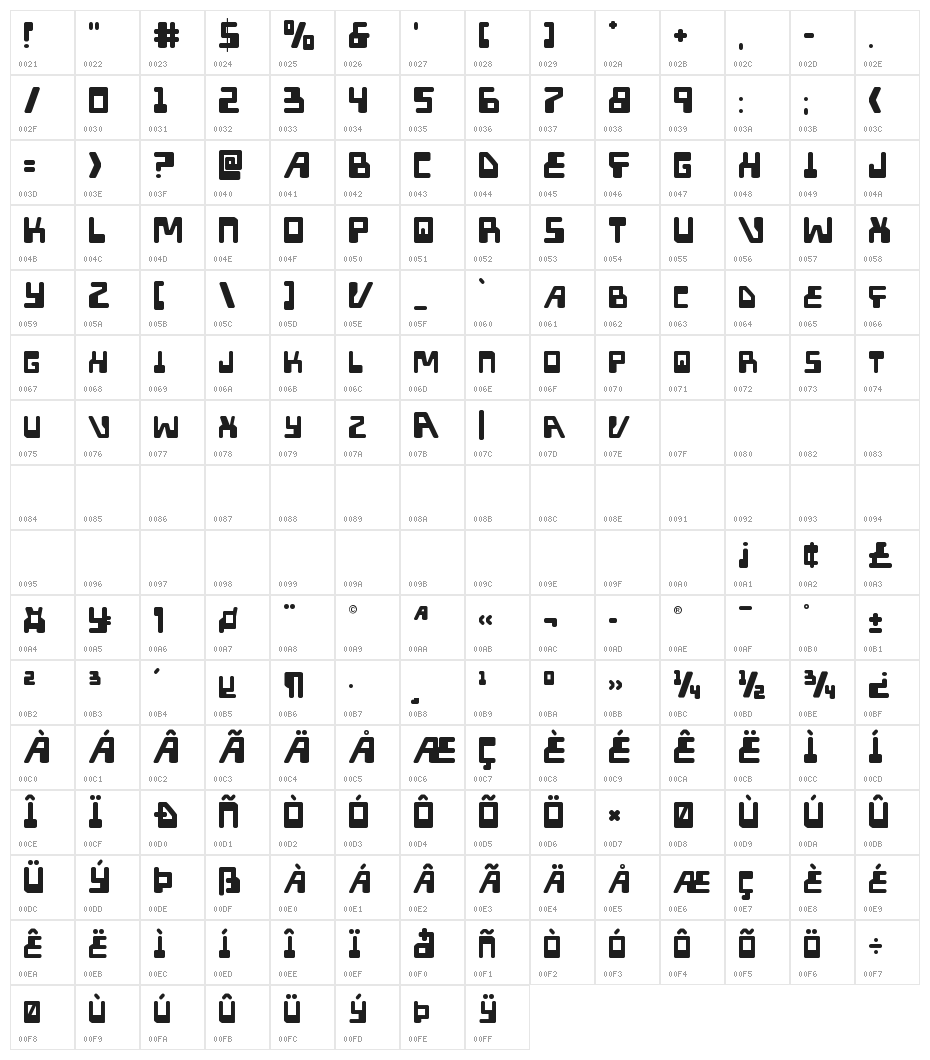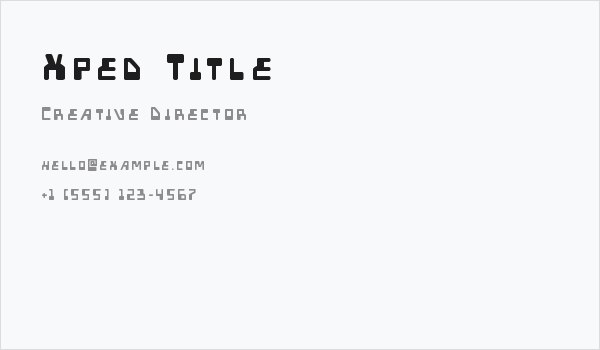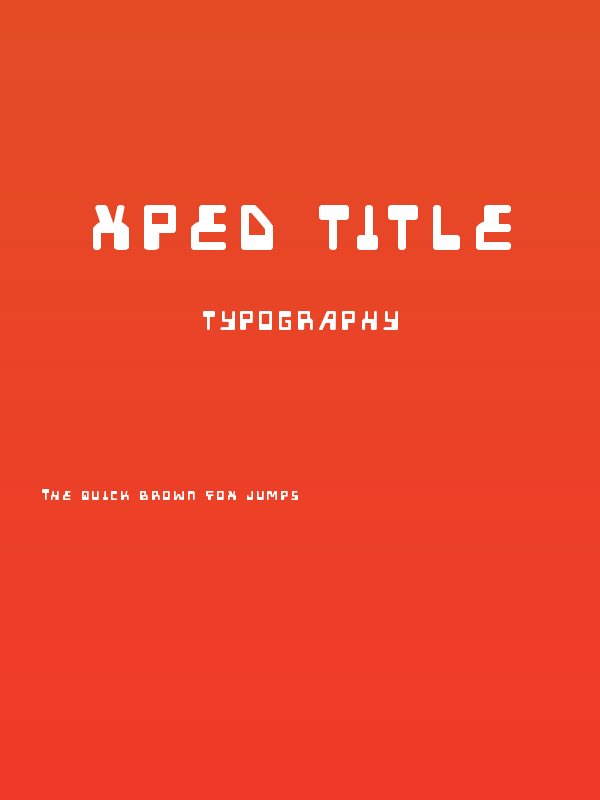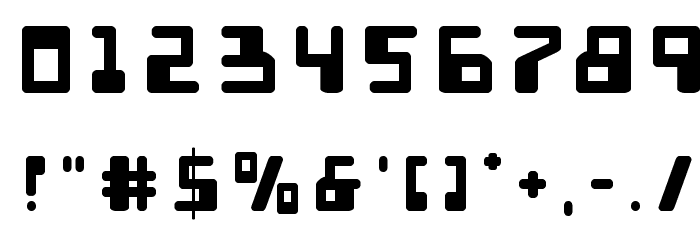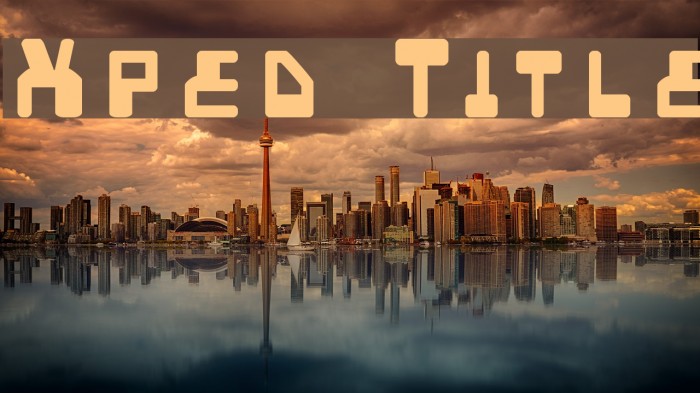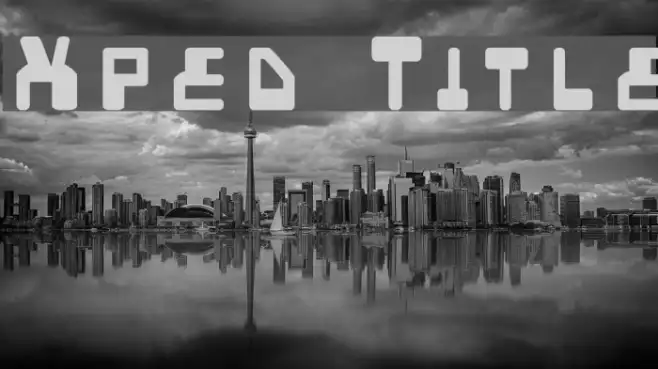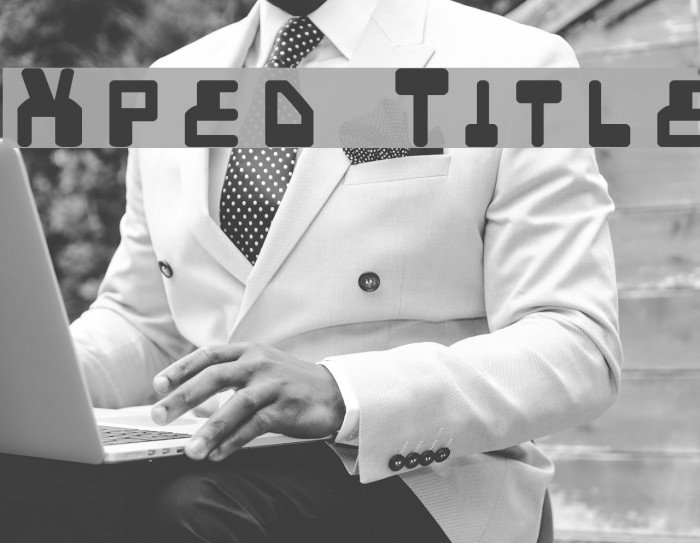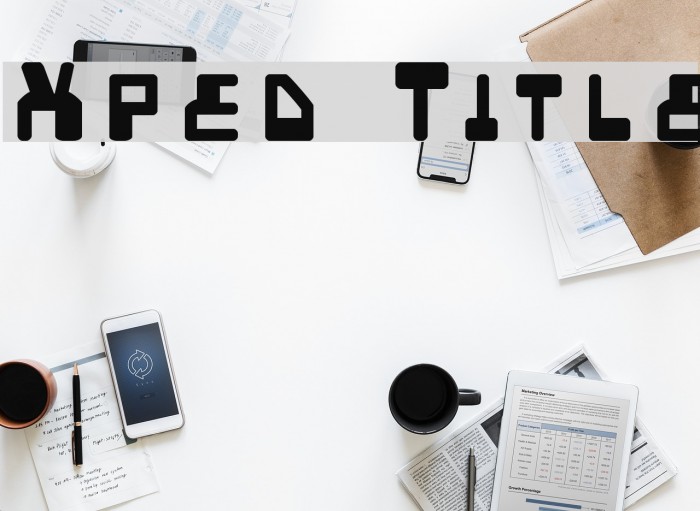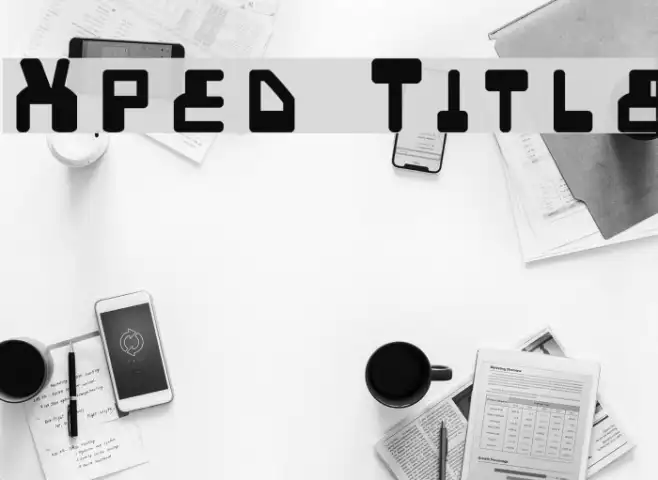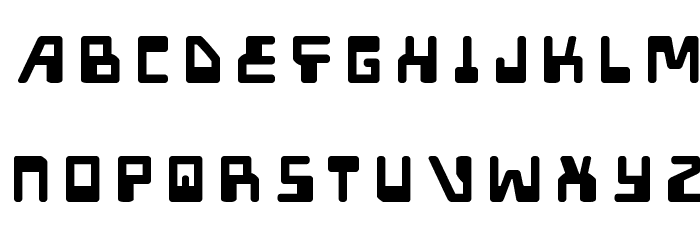
Xped Title Font
Xped Title Description
This font features a bold, geometric design with a futuristic and digital aesthetic. The characters are constructed with a combination of straight lines and sharp angles, giving them a distinct, blocky appearance. The uppercase and lowercase letters maintain a consistent style, with the lowercase being slightly smaller but retaining the same angular characteristics. The numerals are similarly styled, ensuring uniformity across all character sets. Special characters are included, matching the overall design with a modern and tech-inspired look. The font's solid and robust structure makes it highly legible, even at smaller sizes, while its unique style adds a touch of modernity and innovation.
XPED-TITLE UPPERCASE
XPED-TITLE LOWERCASE
XPED-TITLE OTHER CHARS
| Proposed Projects | Ideal for tech-related branding, digital interfaces, video game design, and futuristic-themed posters. |